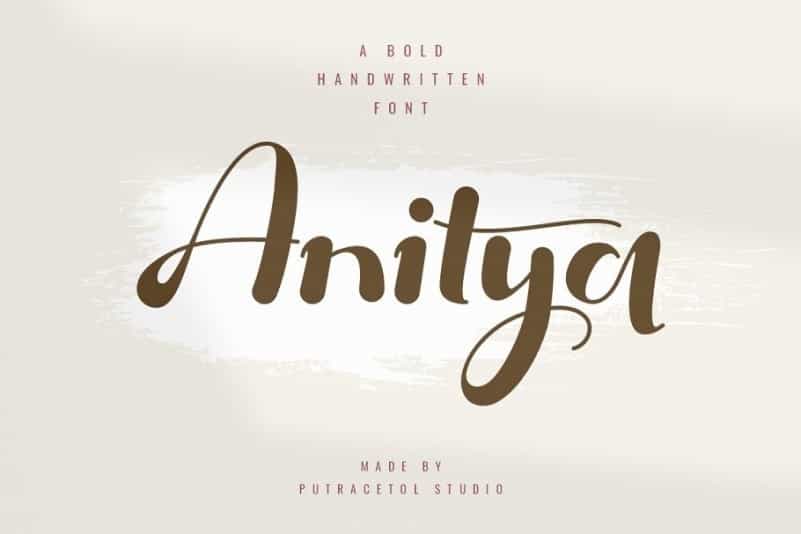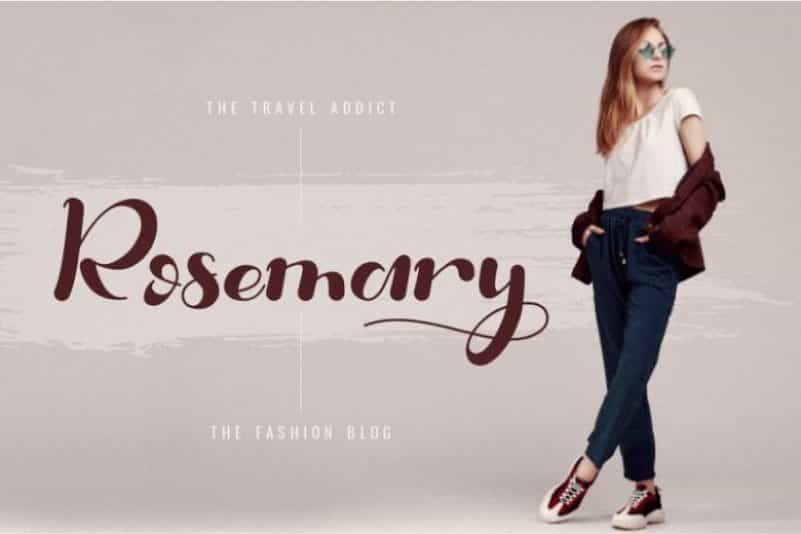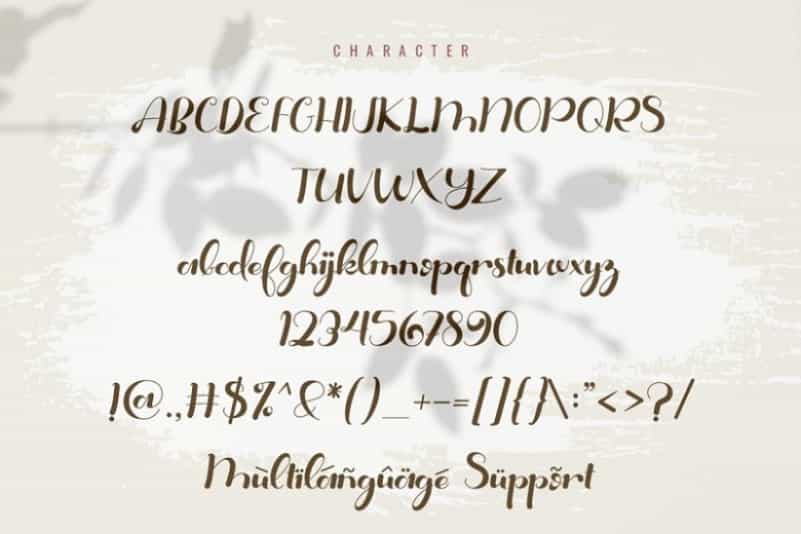
The bold new handwritten script font dubbed Anitya. With a unique hand sweep style, it is perfect for your everyday and work-related needs, such as fashion, logos apparel and photography, watermarks as well as blog headers, quotes and poster, wedding invitations, stationery, branding, letter, etc.